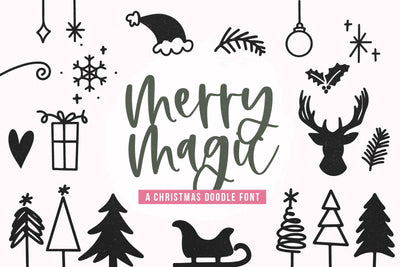
Merry Magic - Christmas Doodle Font
Merry Magic is a doodle font with 52 christmas themed images.
Type any letter A-Z or a-z and you will get a fun christmas doodle!